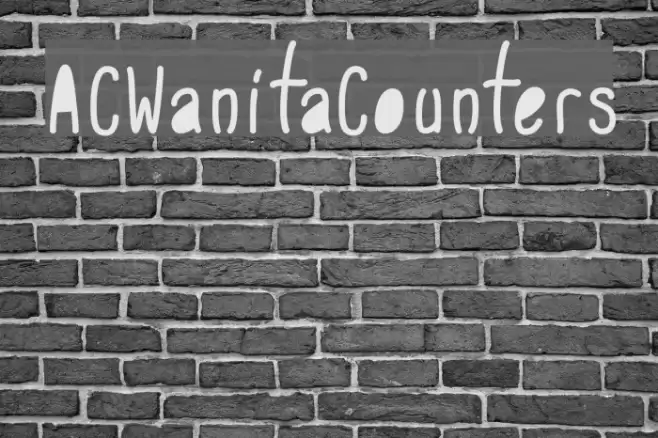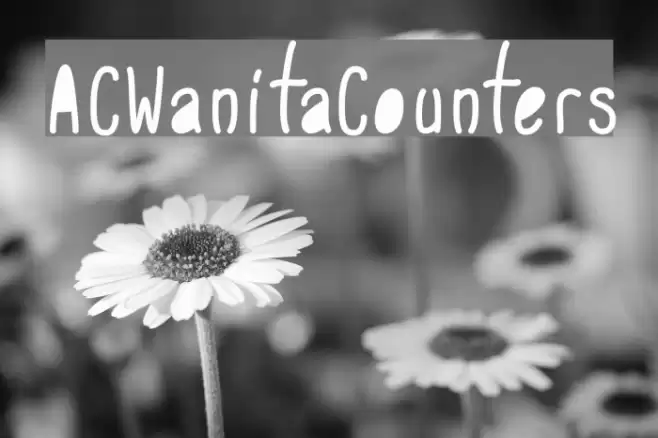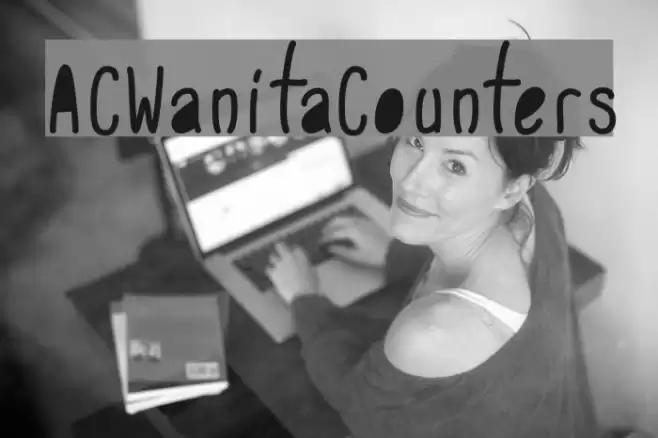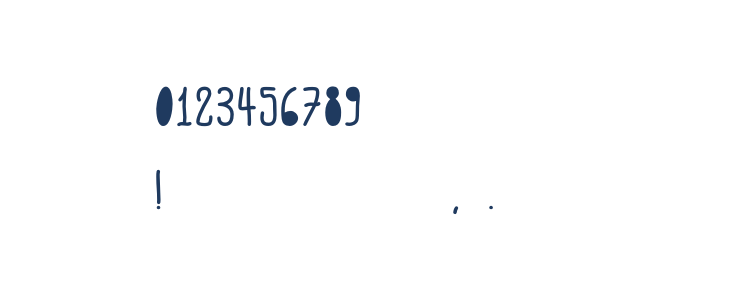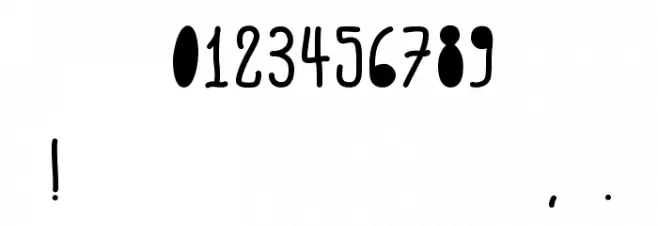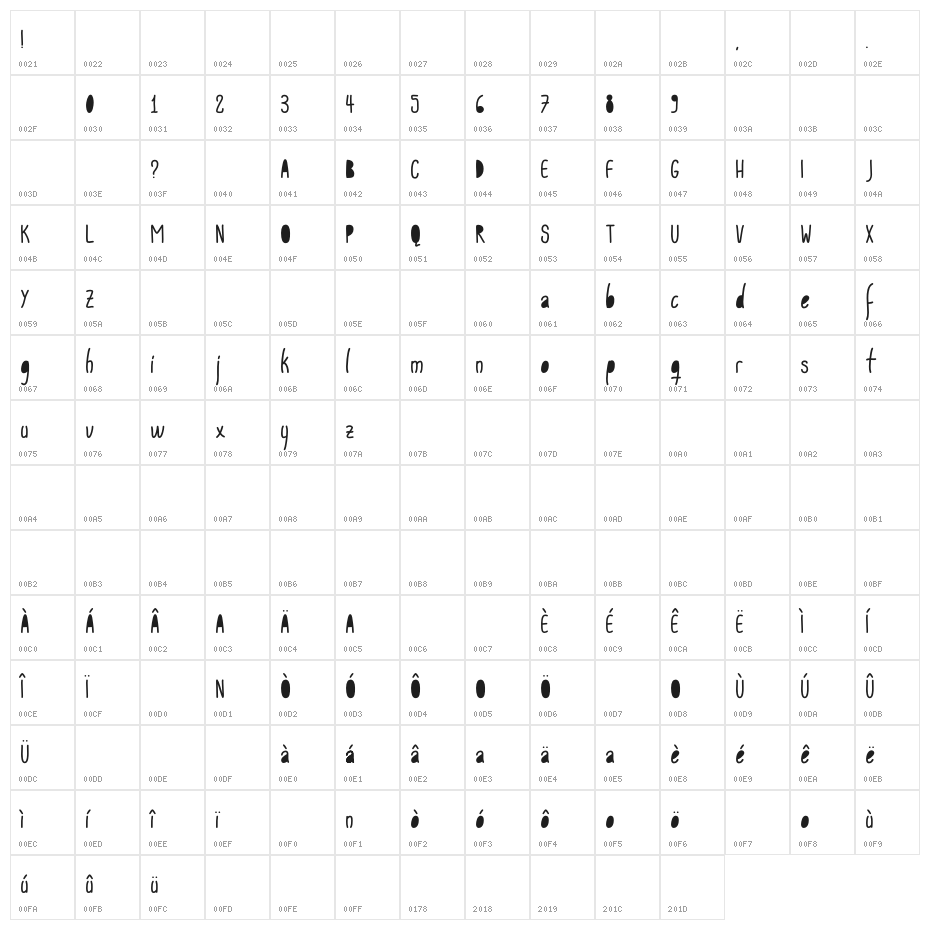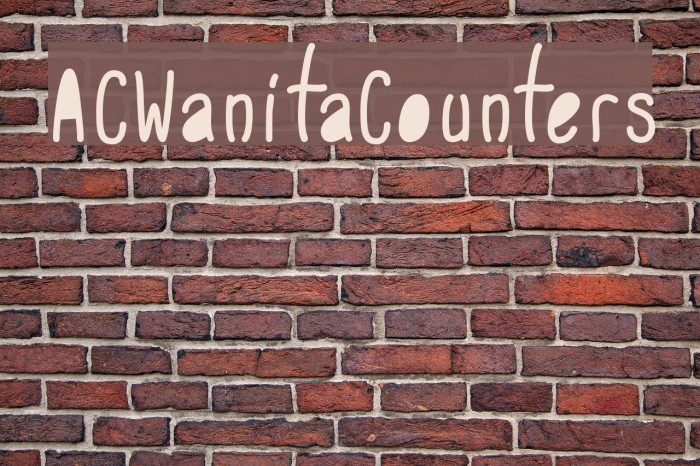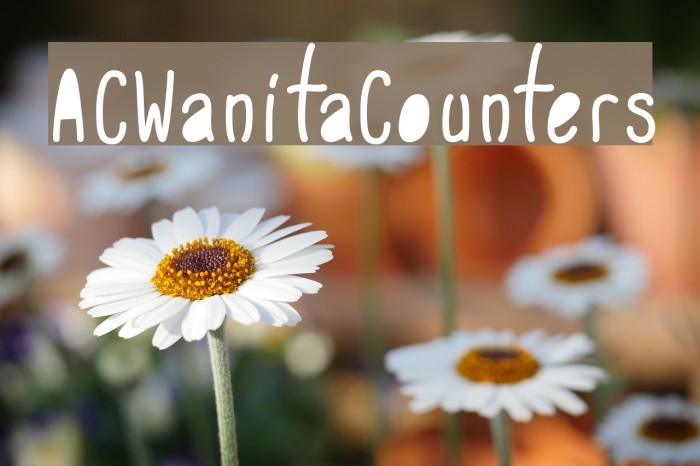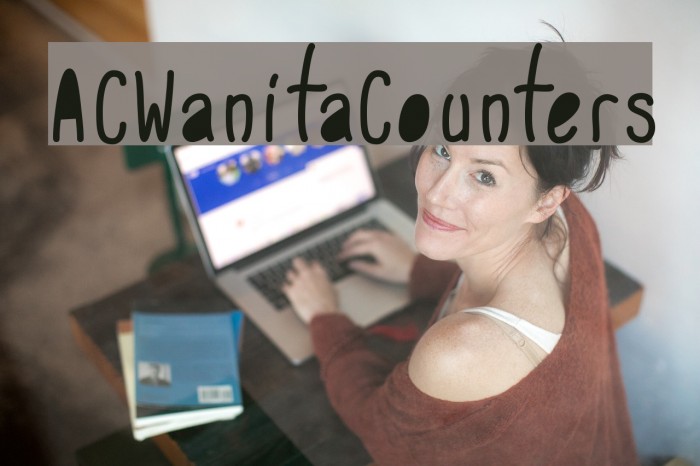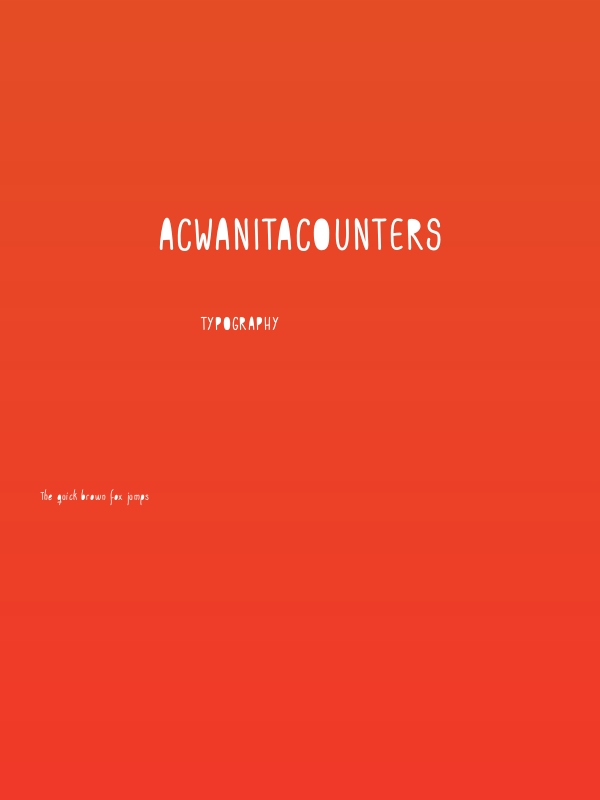
ACWanitaCounters Font
ACWanitaCounters Description
This font features a playful and whimsical style, characterized by its irregular and slightly exaggerated letterforms. The uppercase letters are bold and rounded, with a hand-drawn feel that adds a touch of informality. The lowercase letters maintain a consistent style, with some characters like 'g' and 'j' having distinctive loops that enhance the font's quirky personality. The numerals are bold and easy to read, matching the overall playful aesthetic. The special characters, including punctuation marks, are designed to complement the font's unique style, making it suitable for creative and informal applications.
A playful, hand-drawn font with bold, rounded characters and a whimsical style from Handwritten fonts.
- Proposed Projects: Ideal for children's books, playful branding, greeting cards, and creative posters.
- Overall Style: Whimsical, Playful